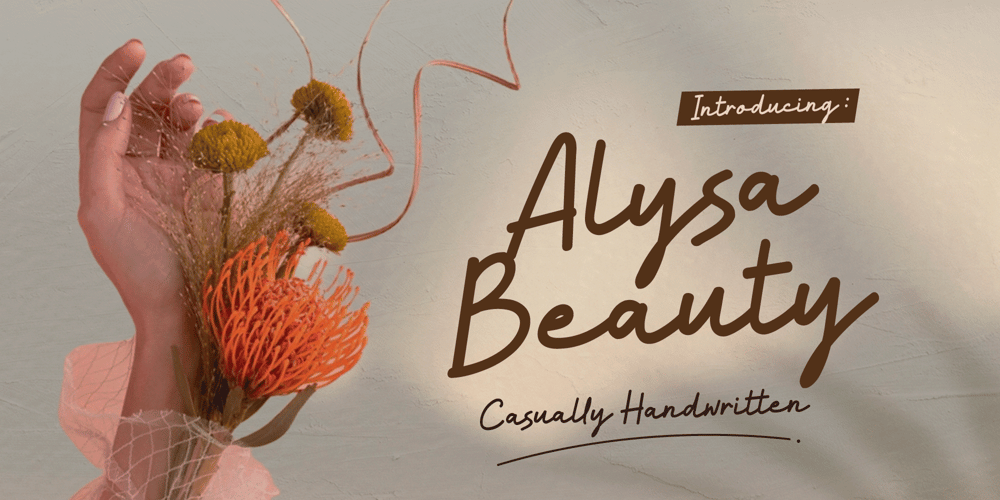
Alysa Beauty
Alysa Beauty font
Alysa Beauty Font Family was designed by Muhammad Asroful Umam and published by Syauqi Studio. Alysa Beauty contains 1 styles and family package options. Alysa Beauty – Elegant Casual Handwritten Font for Fashion, Lifestyle, and Creative ProjectsAlysa Beauty is the perfect casual handwritten font that brings a unique blend of elegance and authenticity to any creative project. With its effortlessly flowing curves and natural strokes, this font is ideal for a wide range of applications, from fashion and cosmetics to weddings, lifestyle branding, F&B, and beyond. Whether you’re designing a chic logo, stylish invitation, or eye-catching social media post, Alysa Beauty will elevate your project with a touch of refined personality.Crafted to offer versatility without compromising on style, Alysa Beauty seamlessly combines the casual appeal of handwritten design with the sophistication needed for premium branding. It’s perfect for creative entrepreneurs looking to make a lasting impression. The smooth flow of this font is designed to convey elegance while still maintaining an approachable, down-to-earth vibe.Whether you’re designing for a trendy beauty brand, a cozy café, or a luxurious fashion boutique, Alysa Beauty has the flexibility to complement your creative vision. Stand out in the crowded marketplace with a font that captures both attention and heart.Why Choose Alysa Beauty? Elegant, yet casual handwritten style. Perfect for fashion, beauty, weddings, lifestyle, and F&B industries. Adds a personal touch to logos, branding, and web design. Versatile for a wide range of creative projects, from invitations to advertisements. Easy-to-read with a friendly and professional appeal. Bring Your Designs to Life with Alysa Beauty – the Font that Speaks to Your Audience.